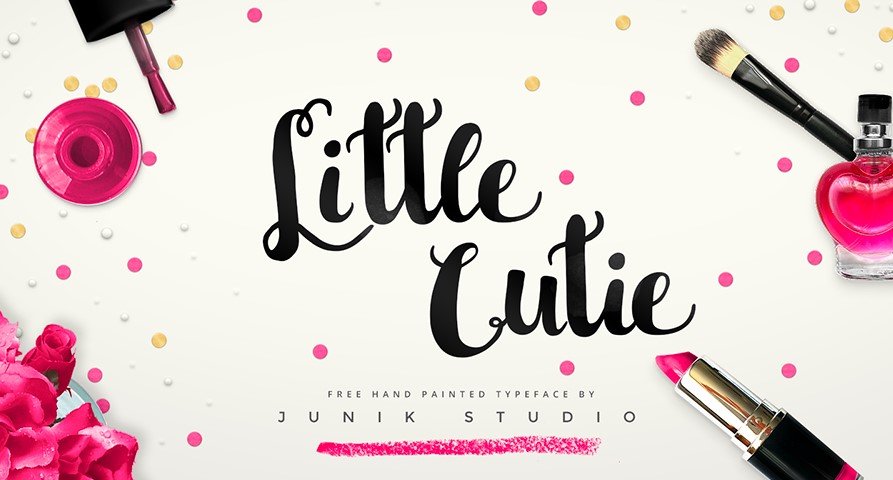
There are a variety of scripted fonts available in the font market, some require payment while others are free. Paid fonts may be expensive but they have beautiful glyphs and textures, while free fonts may have limited styles and textures. Today, we are introducing a font called Little Cutie Font, which is a free typeface that includes all the features and characteristics of paid fonts.
Every designer can easily uses this font in their project because of its dynamic nature and sharpness characters which can be adjustes in all types of projects. The font suitable for posters, banners, logos and covers also. You can use this font in any ways or in any styles which you want.
We shared this font that is best for pairing and can be use as two fonts with the combination of exo font that will give your projects another look and sharp design. Lets have a look on more information of this font.
The Comic Boys Display Font is very close to the Little Cutie Font.